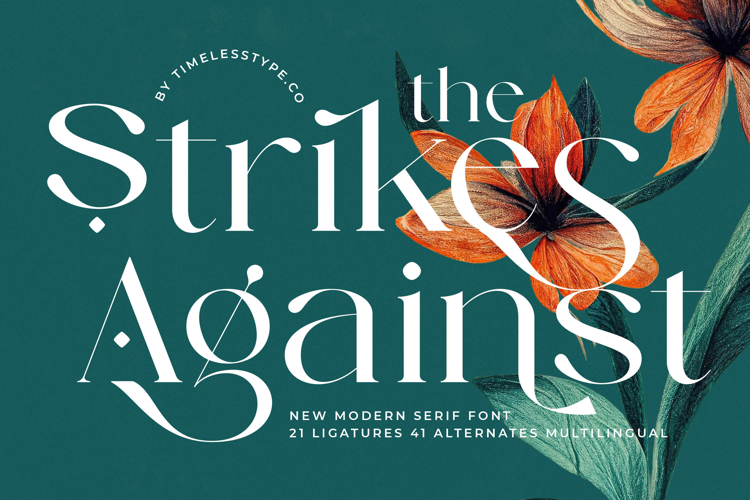
Strikes Against - Modern Serif Font
Elevate your design projects with the unparalleled sophistication of Strikes Against - Modern Serif Font. This exquisite typeface masterfully blends classic elegance with a distinct contemporary edge, featuring high-contrast strokes and finely crafted serifs. Its refined visual architecture ensures a luxurious and memorable impression, perfect for conveying prestige and artistry. Strikes Against - Modern Serif Font offers an instantly desirable aesthetic.
Unleash creative possibilities with a typeface designed for global impact and expressive freedom. Strikes Against - Modern Serif Font comes packed with 21 ligatures and 41 stylistic alternates, offering unparalleled customization and fluidity. These rich typographic features provide tools to craft unique and captivating text. With its extensive multilingual support, Strikes Against - Modern Serif Font adapts seamlessly across global markets, making it incredibly versatile for international projects.